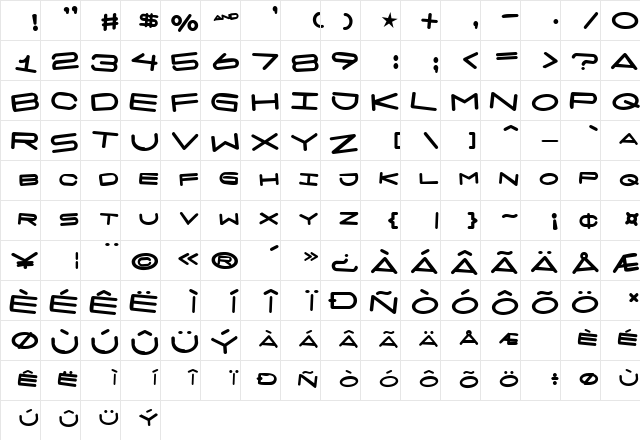
7 days fat rotated Regular Font Preview
7 days fat rotated Regular
Design Context for 7 days fat rotated Typeface
7 days fat rotated takes a measured approach to typography — its balanced proportions and neutral character make it a reliable workhorse for both digital and print work.